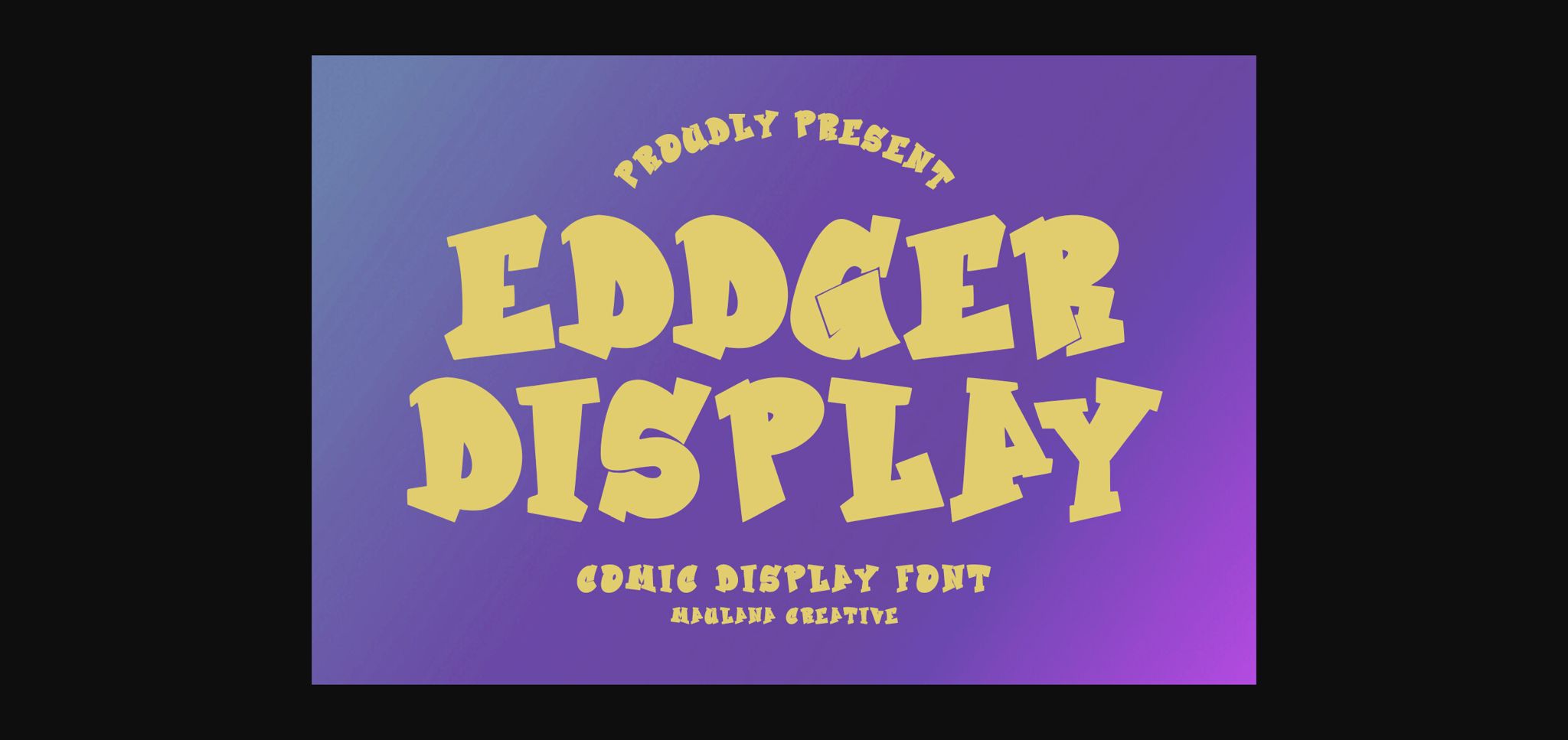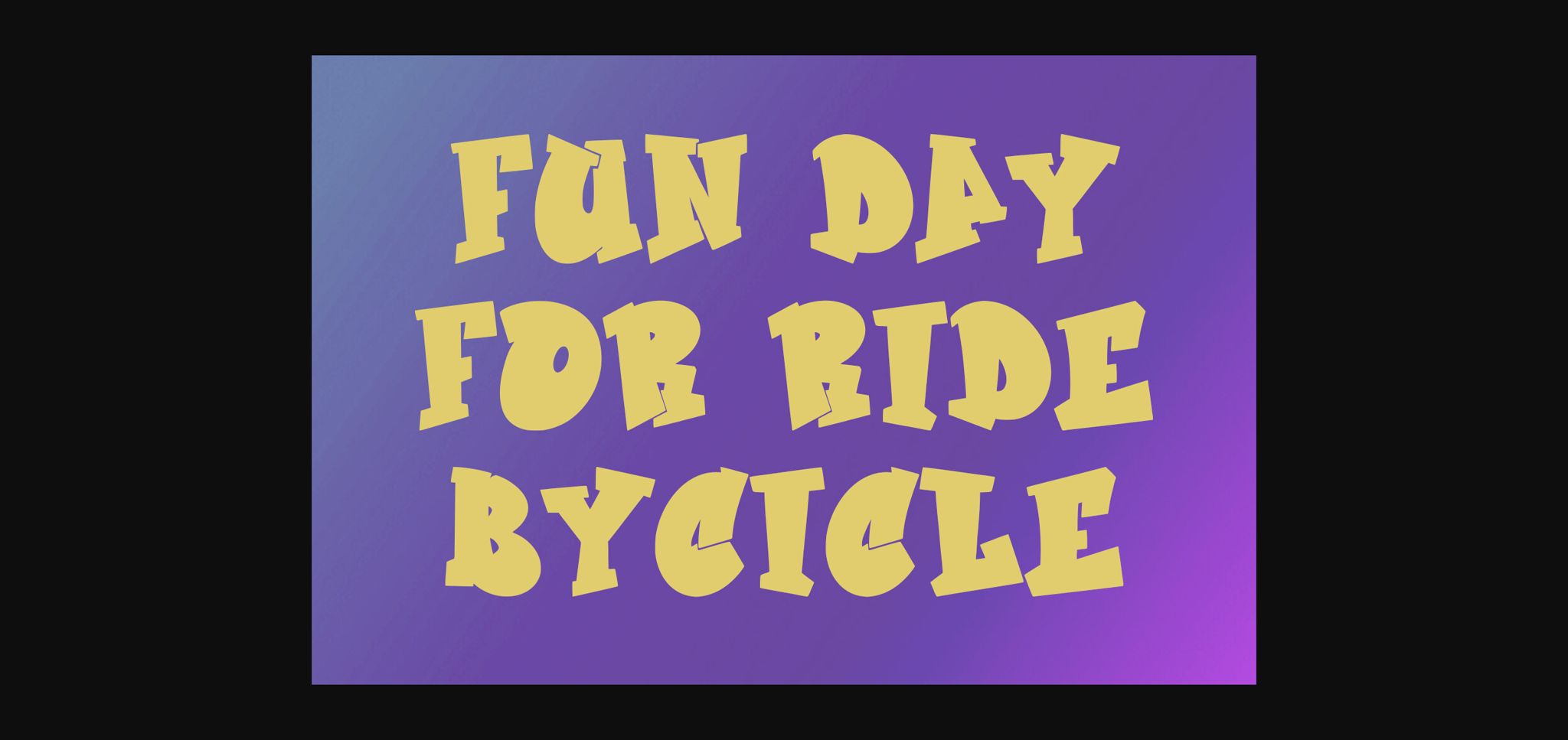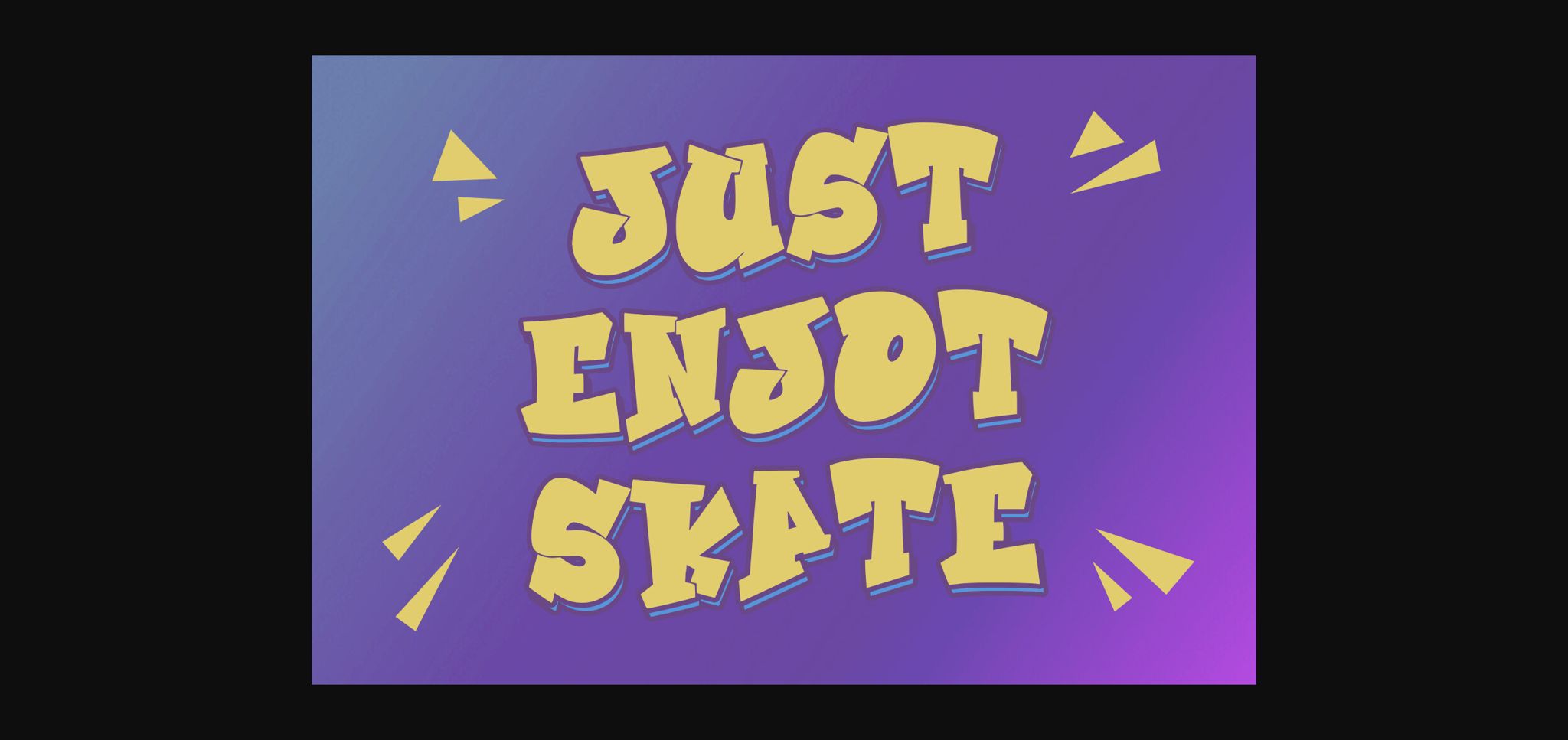
About Eddger Font
Eddger comic display font. This font is good for logo design, Social media, Movie Titles, Books Titles, a short text even a long text letter and good for your secondary text font with script or serif. Make a stunning work with Eddger comic display font.